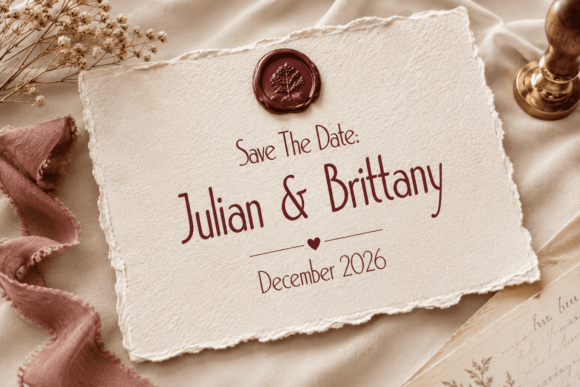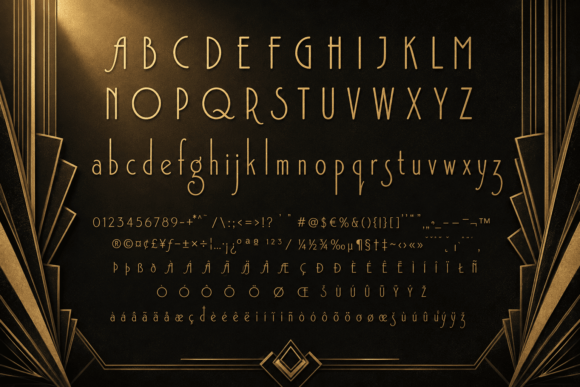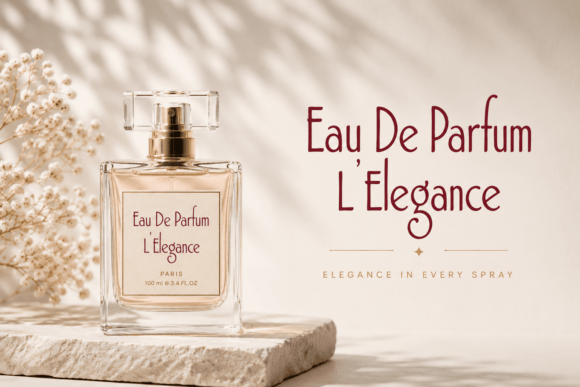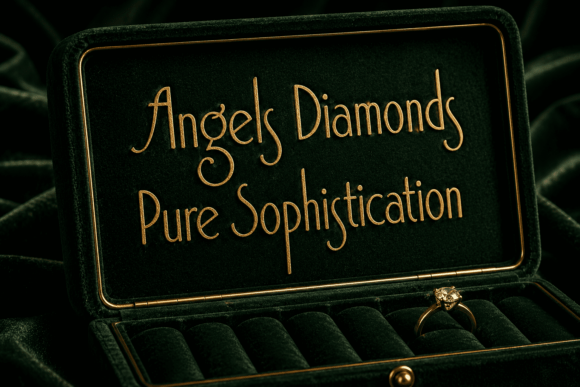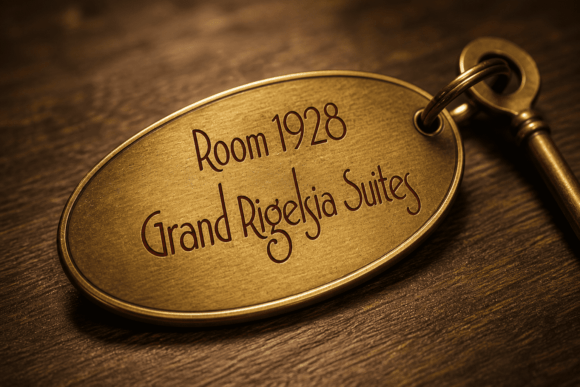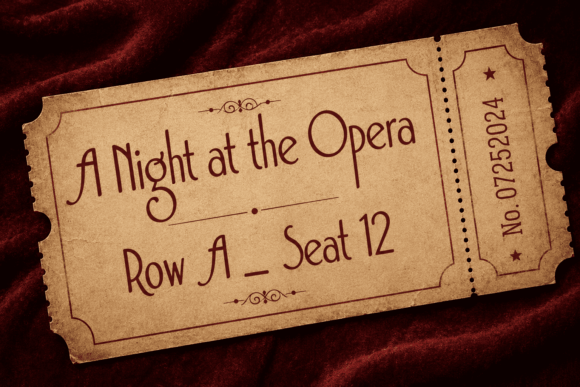
Aesthetic Rigelsia Font: Unlock the Glamour of the Roaring Twenties
There’s a reason the 1920s still feel like the most glamorous era in history. It wasn’t the champagne. It wasn’t the parties. It was the design — bold, geometric, unapologetically luxurious. Every poster, every logo, every headline dripped with confidence. That era had a visual language. And now, you can speak it.
Introducing Aesthetic Rigelsia
Introducing Aesthetic Rigelsia — a handcrafted font that translates the golden age of Art Deco into every project you touch. Its signature ultra-tall verticals and sweeping geometric curves don’t just look beautiful. They command attention. They signal quality before a single word is read.
The Art of Unforgettable Design
This isn’t a font you use when you want to “look nice.” This is the font you use when you want to look unforgettable. Aesthetic Rigelsia is more than just a font — it’s an experience. It’s a statement piece that elevates your design and makes it memorable.
Imagine using Aesthetic Rigelsia on a wedding invitation. The ultra-tall verticals and sweeping curves evoke a sense of luxury and sophistication, making guests feel like they’re being summoned to something magnificent.
Or, picture dropping Aesthetic Rigelsia on a brand logo. The font’s bold, geometric design instantly conveys quality and confidence, making clients look twice. Your brand will stand out from the competition and leave a lasting impression.
The Power of Perception
Place Aesthetic Rigelsia on a product label, and people will assume the price is higher than it is — because it looks luxurious. The font’s association with high-end design and luxury products creates a perception of value and exclusivity.
This is the power of typography. The right font can make or break a design. And Aesthetic Rigelsia is the perfect choice for designers and crafters who want to create something truly unforgettable.
Key Features of Aesthetic Rigelsia
- Ultra-tall verticals: Aesthetic Rigelsia’s signature feature is its ultra-tall verticals, which give the font its distinctive, luxurious feel.
- Sweeping geometric curves: The font’s sweeping curves add a touch of sophistication and elegance to any design.
- Handcrafted: Aesthetic Rigelsia is a handcrafted font, giving it a unique, bespoke feel that’s perfect for high-end designs.
- Art Deco inspiration: The font’s Art Deco inspiration gives it a timeless, classic feel that’s perfect for designers who want to create something truly memorable.
Who is Aesthetic Rigelsia for?
Aesthetic Rigelsia is perfect for designers and crafters who want to create high-end designs that leave a lasting impression. Whether you’re working on a wedding invitation, a brand logo, or a product label, Aesthetic Rigelsia is the perfect choice.
Aesthetic Rigelsia is more than just a font — it’s a design experience. Its bold, geometric design and luxurious feel make it perfect for designers and crafters who want to create something truly unforgettable.
So why settle for a ordinary font when you can create something extraordinary with Aesthetic Rigelsia? Unlock the glamour of the Roaring Twenties and elevate your design to new heights.